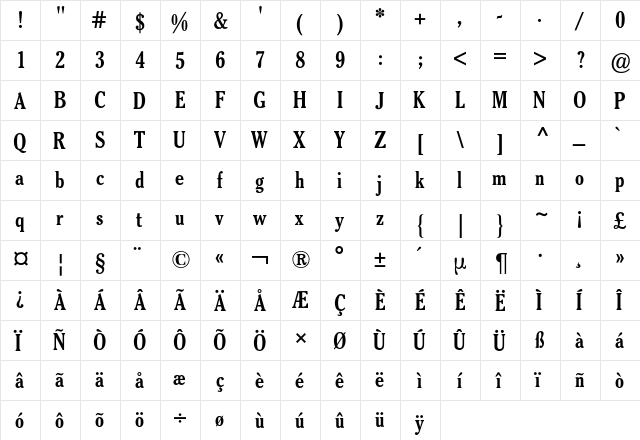
Cheltenham ATF Old Style BQ Regular
Design Context for Cheltenham ATF Old Style BQ Typeface
Cheltenham ATF Old Style BQ takes a measured approach to typography — its balanced proportions and neutral character make it a reliable workhorse for both digital and print work.